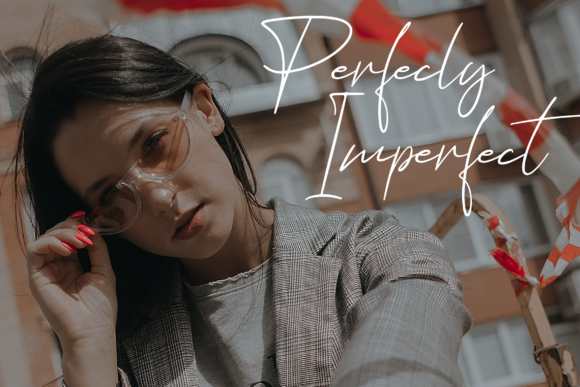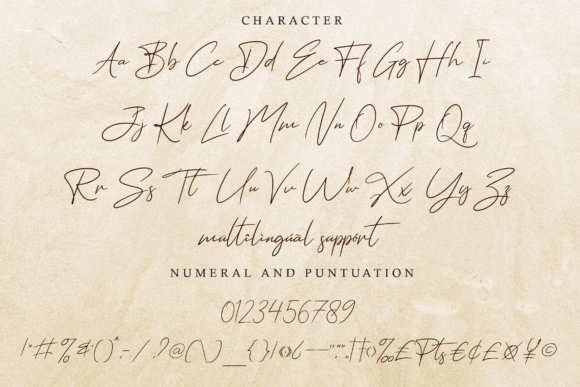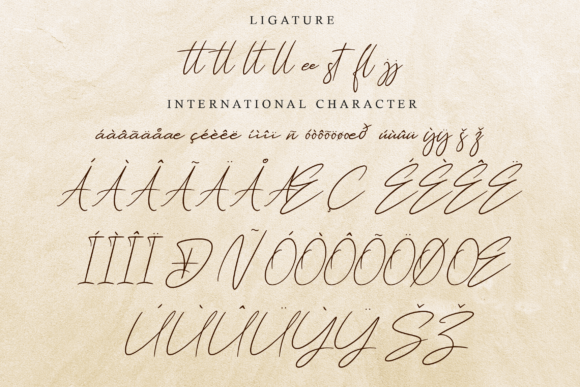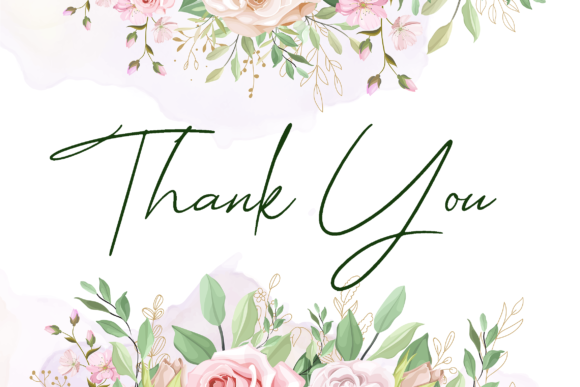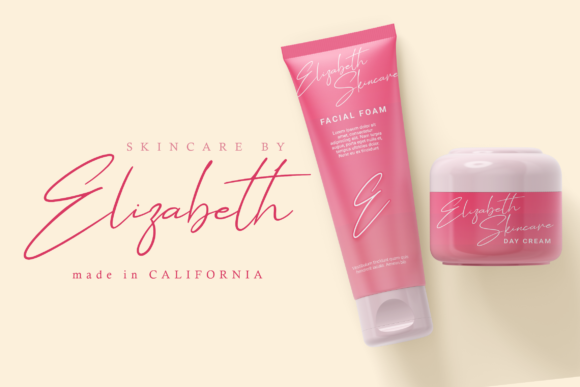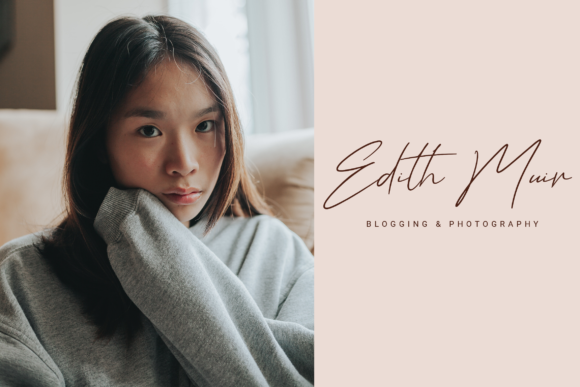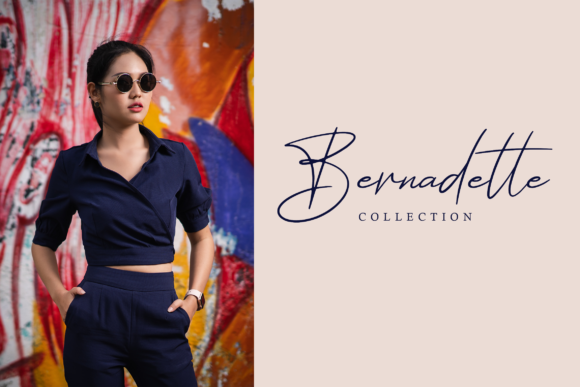
Hathem Bosteem Font
About Hathem Bosteem Font
Hathem Bosteem is a gorgeous, relaxed handwritten font. Due to its versatile style, it can easily become a true favorite. Fall in love with Hathem Bosteem’s authentic feel and use it to create outstanding wedding invitations, beautiful stationary art, eye-catching social media posts, and cute greeting cards.